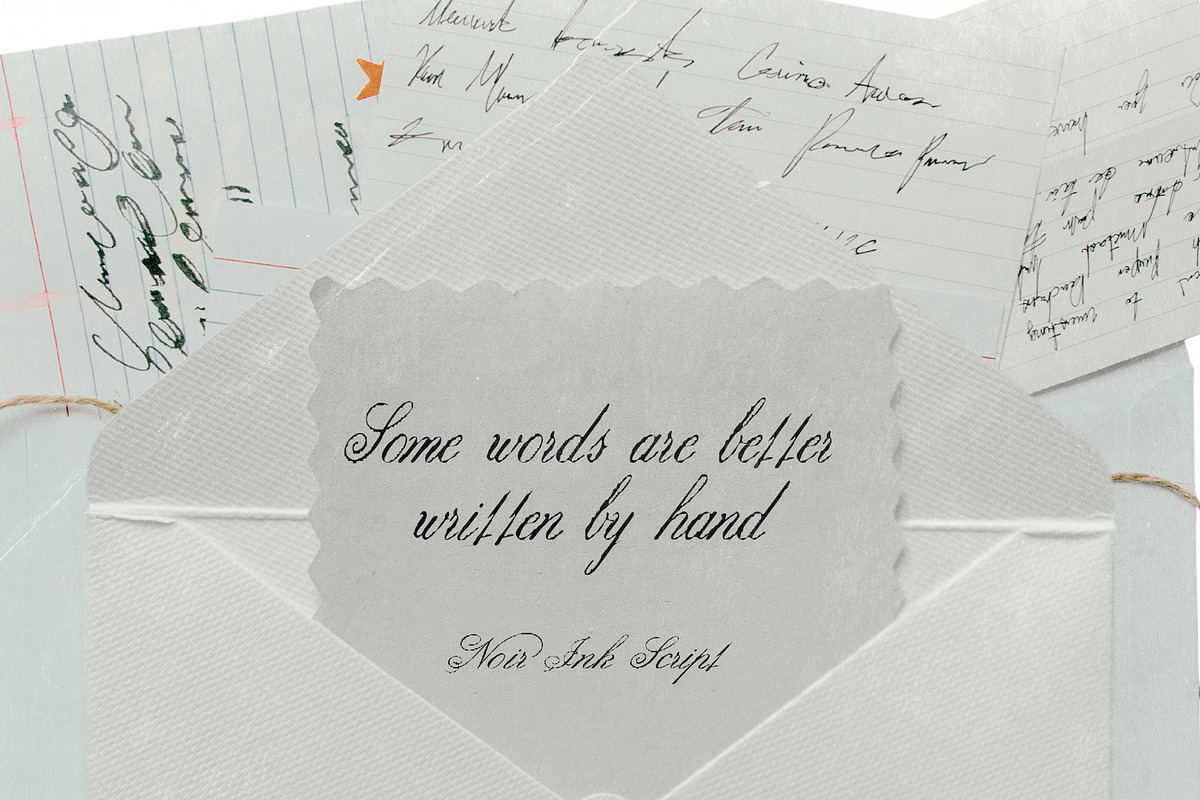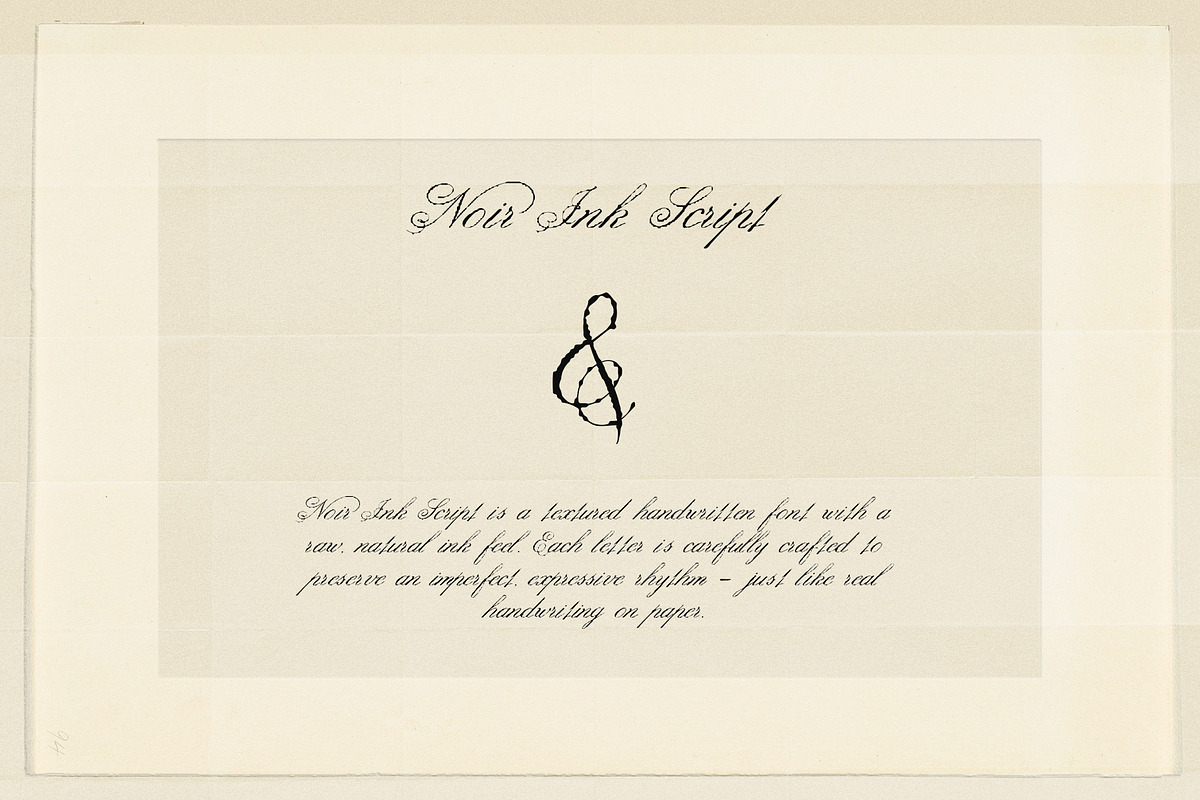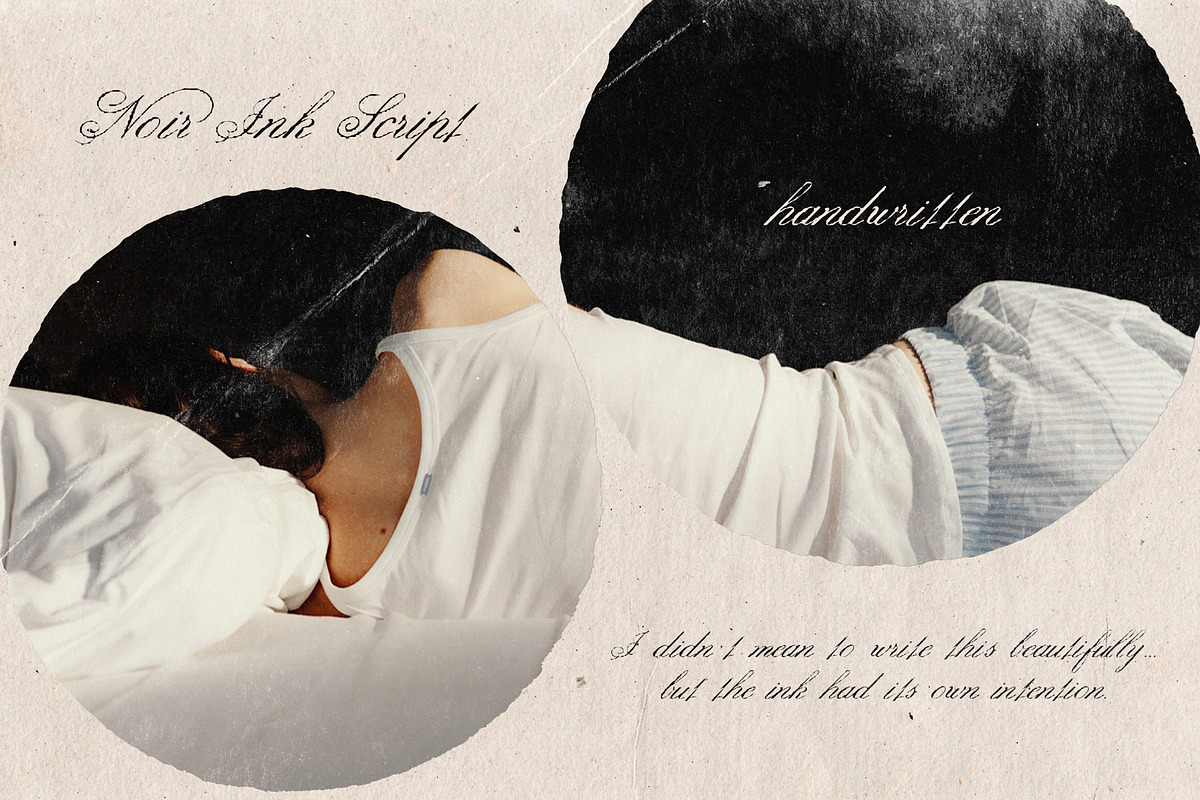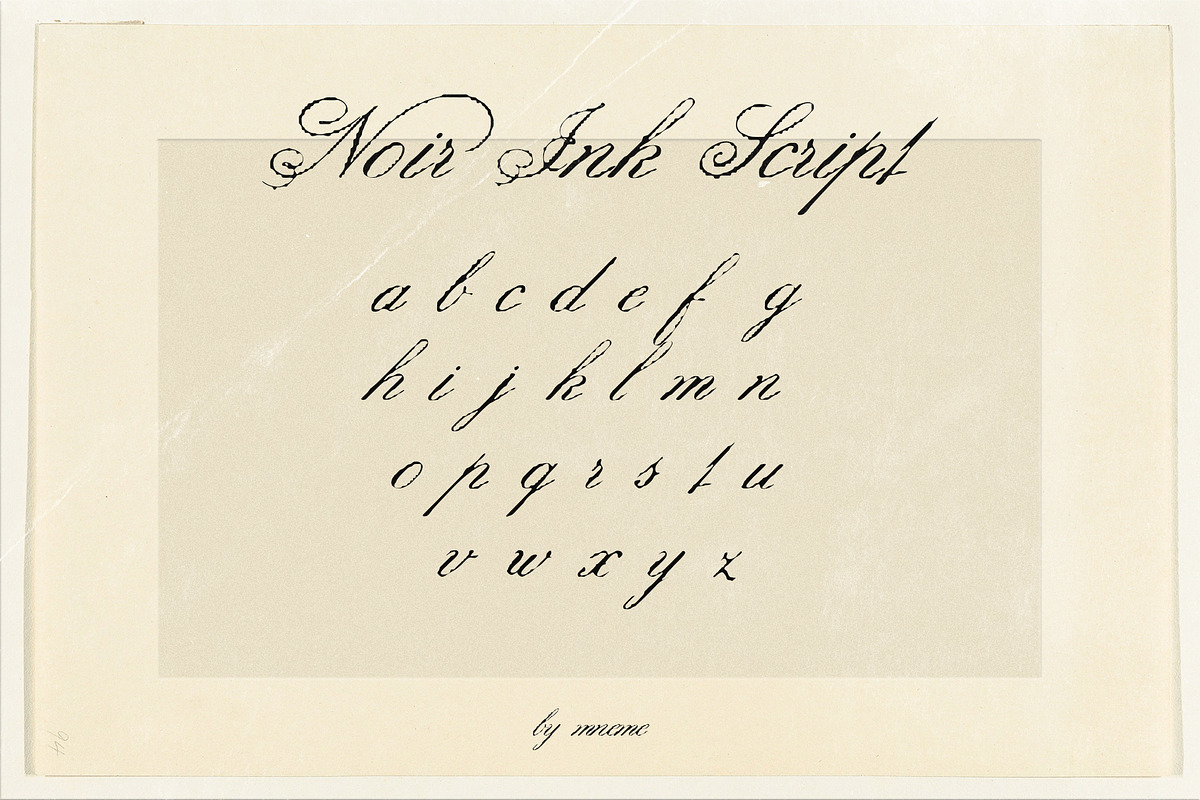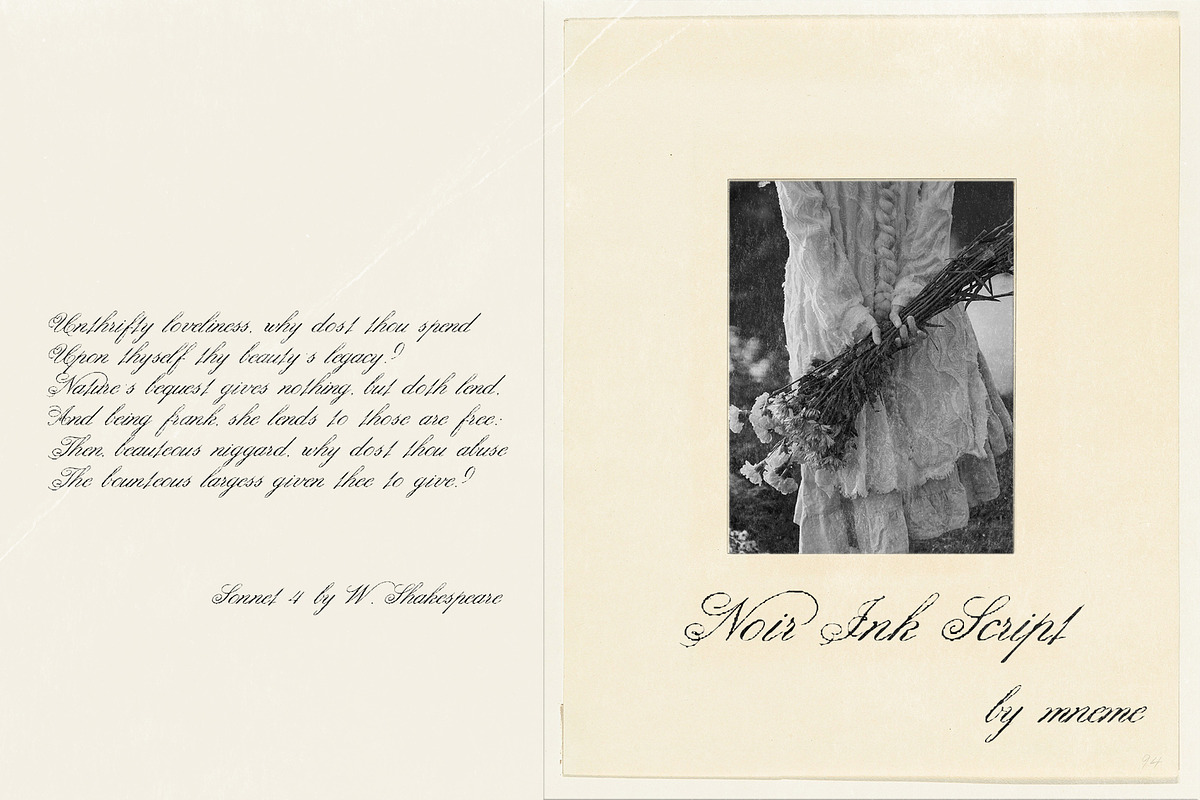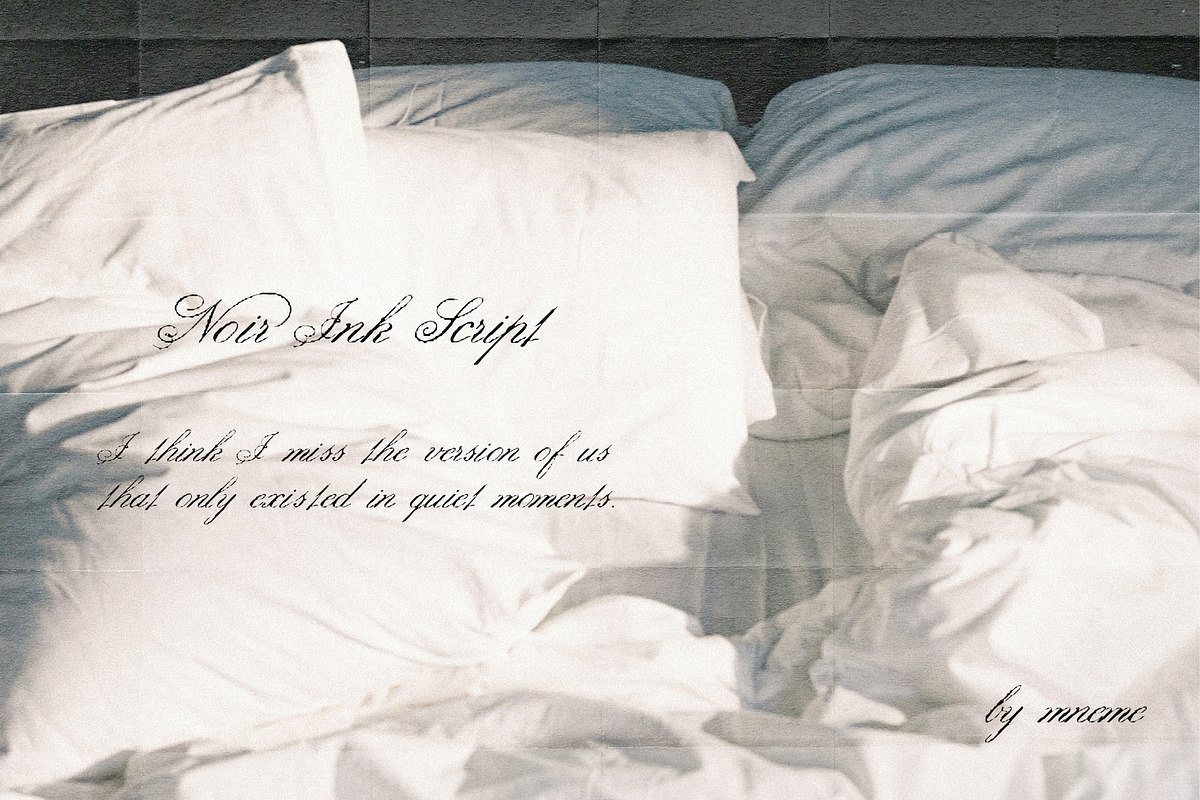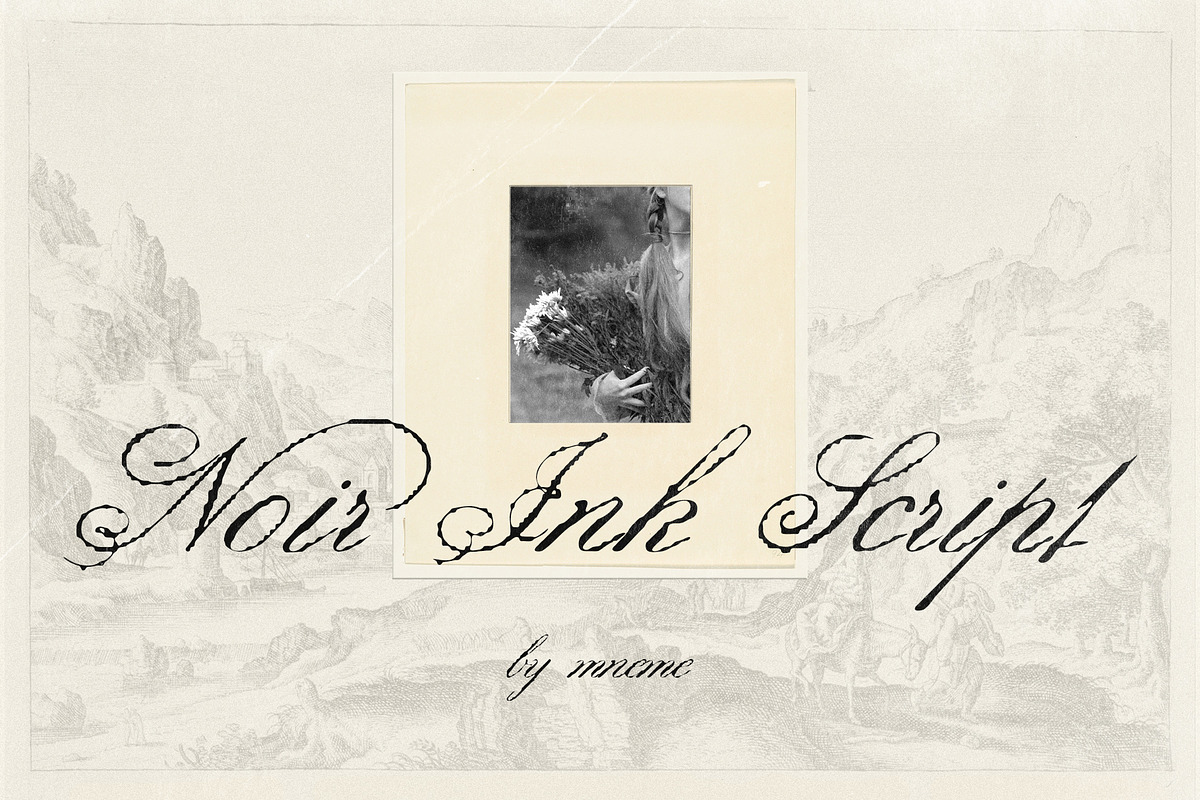
Noir Ink Script
Noir Ink Script - Elegant Handwritten Font.
Noir Ink Script is a textured handwritten font with a raw, natural ink feel. Each letter is carefully crafted to preserve an imperfect, expressive rhythm - just like real handwriting on paper.
With its slightly messy strokes and subtle ink texture, this font brings an authentic and emotional touch to any design. It feels organic, soft, and effortlessly stylish — perfect for modern creatives looking for something less polished and more real.
Uppercase & lowercase letters
Natural handwritten flow
Textured, slightly rough ink style
Multilingual support (basic)